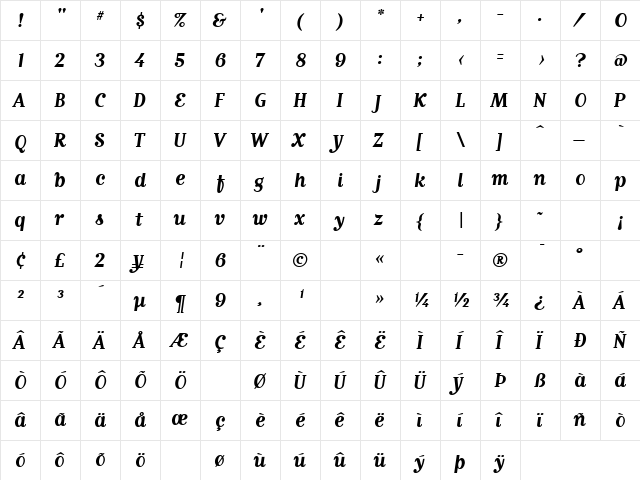
MatrixScriptBoldLining Regular Font Preview
Design Context for MatrixScriptBoldLining Typeface
MatrixScriptBoldLining flows with the natural rhythm of handwritten lettering, making it ideal for designs that call for warmth and personal expression. Its bold stroke weight gives it real presence on the page.